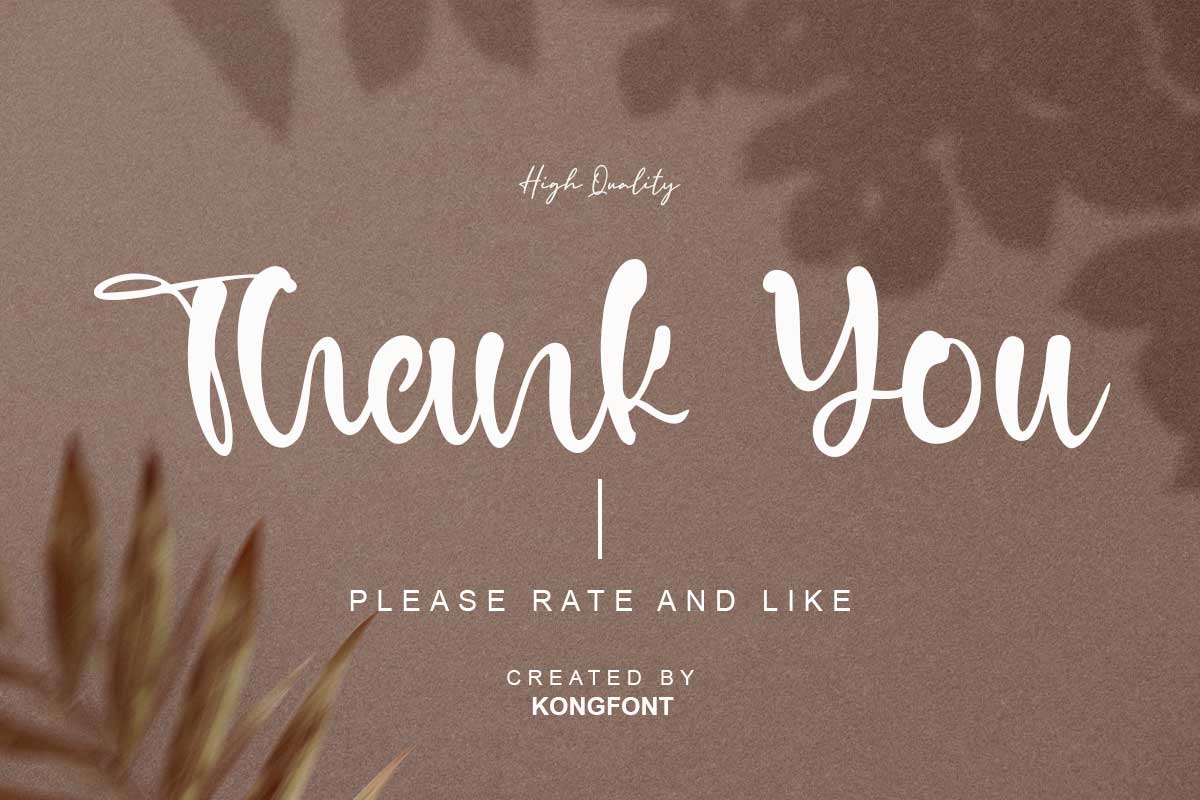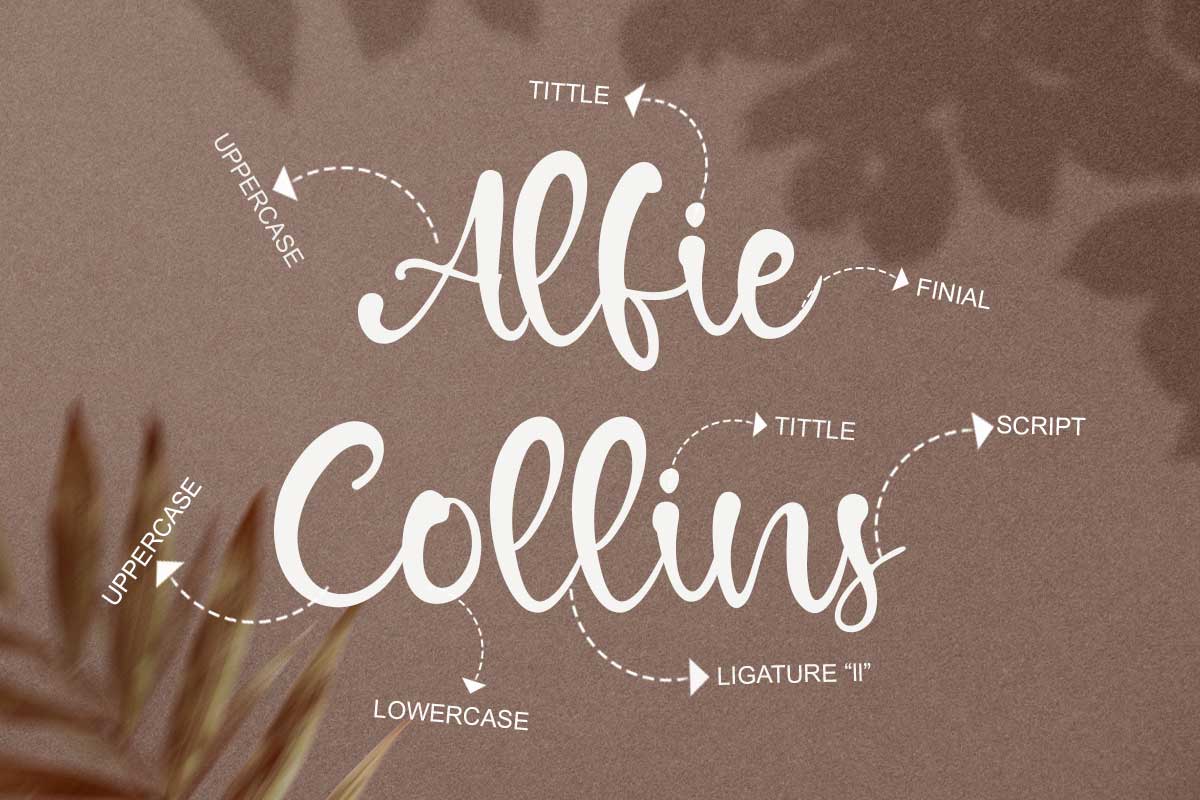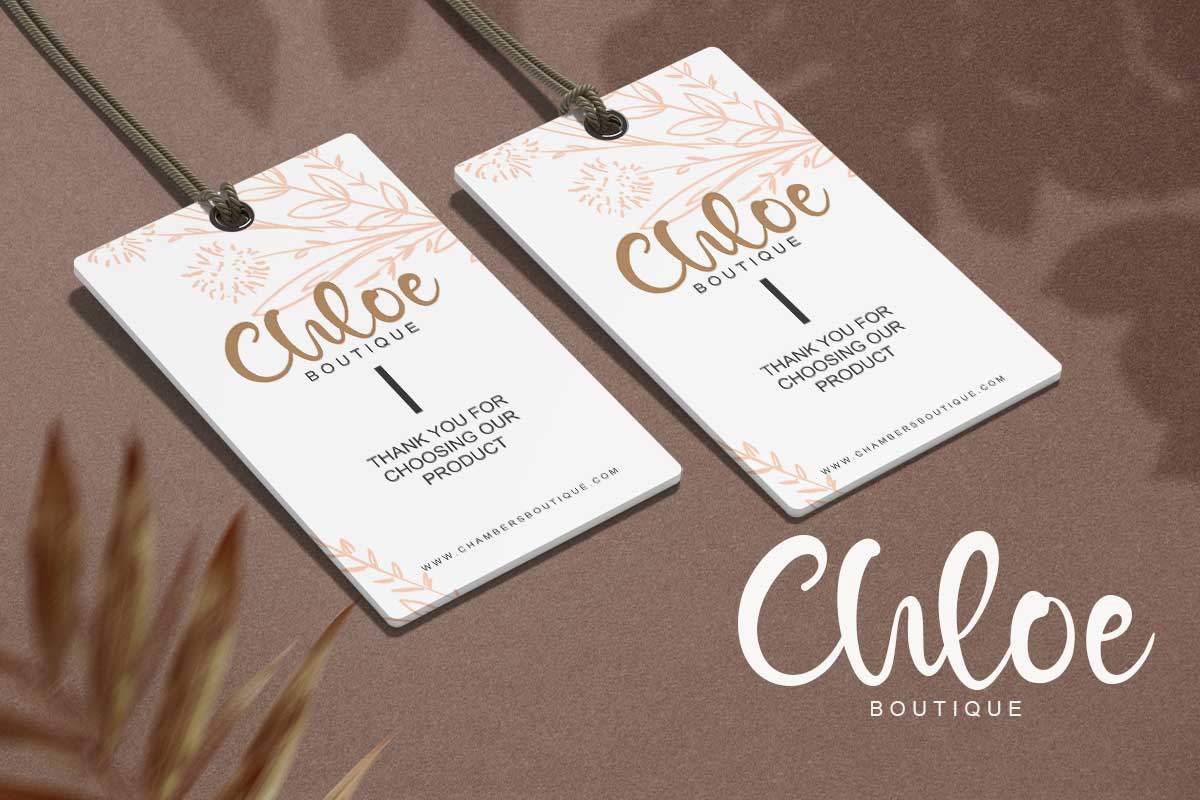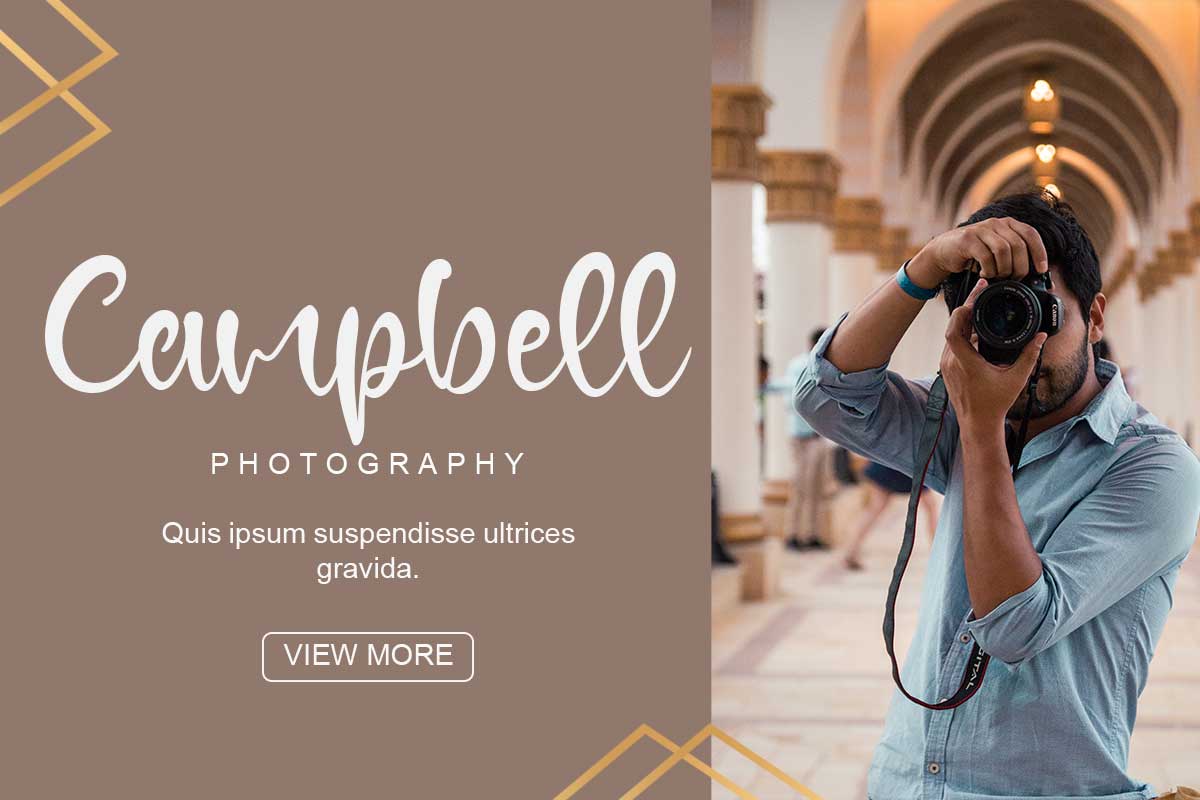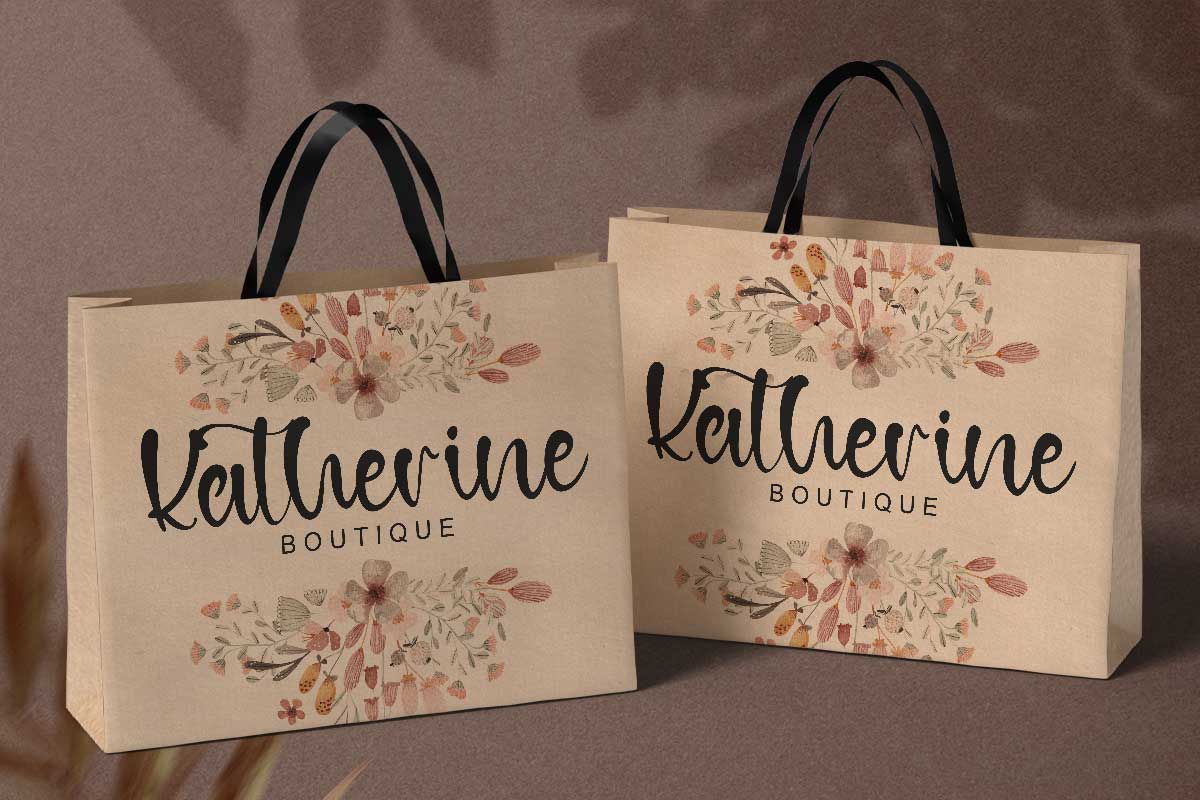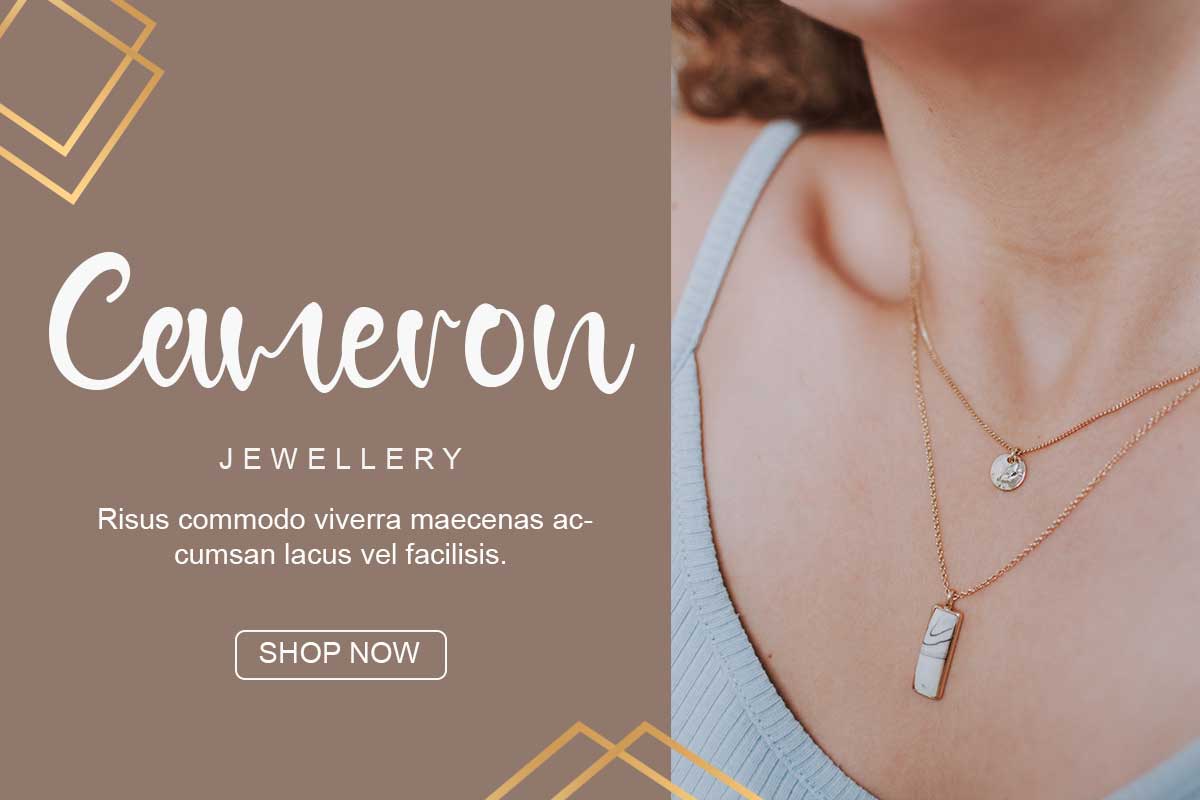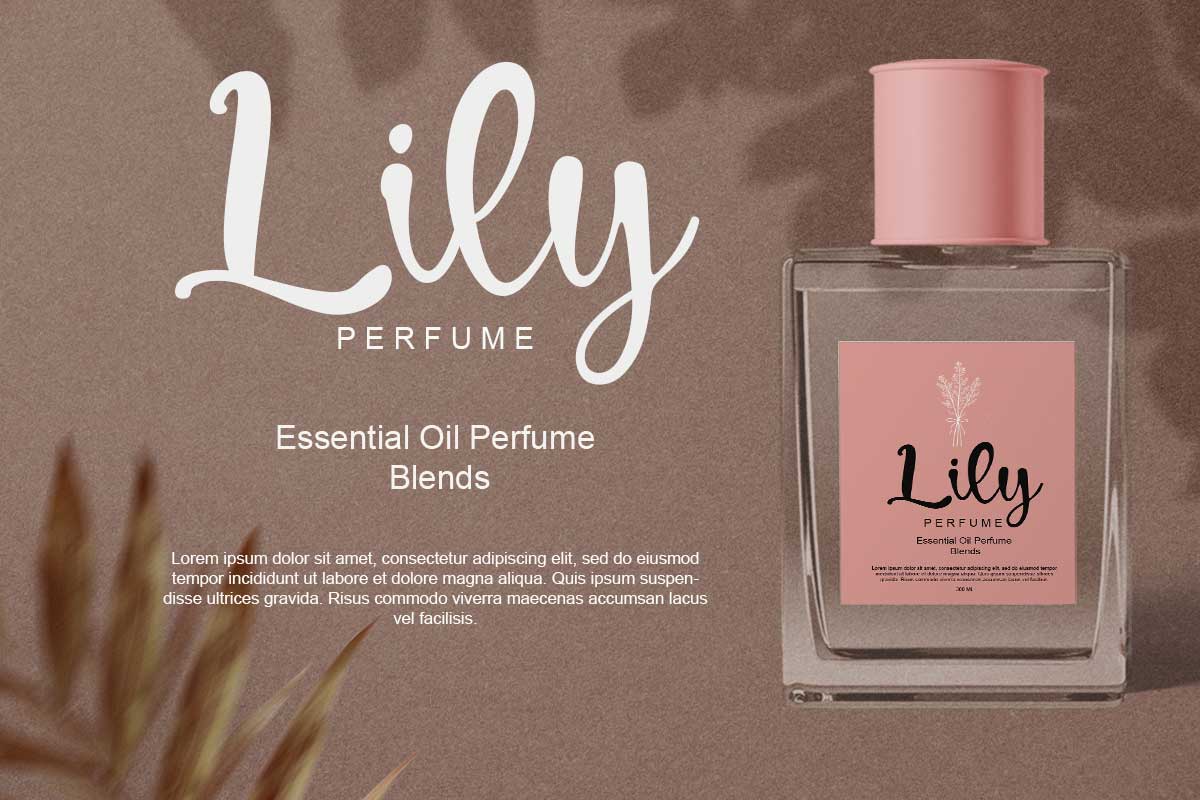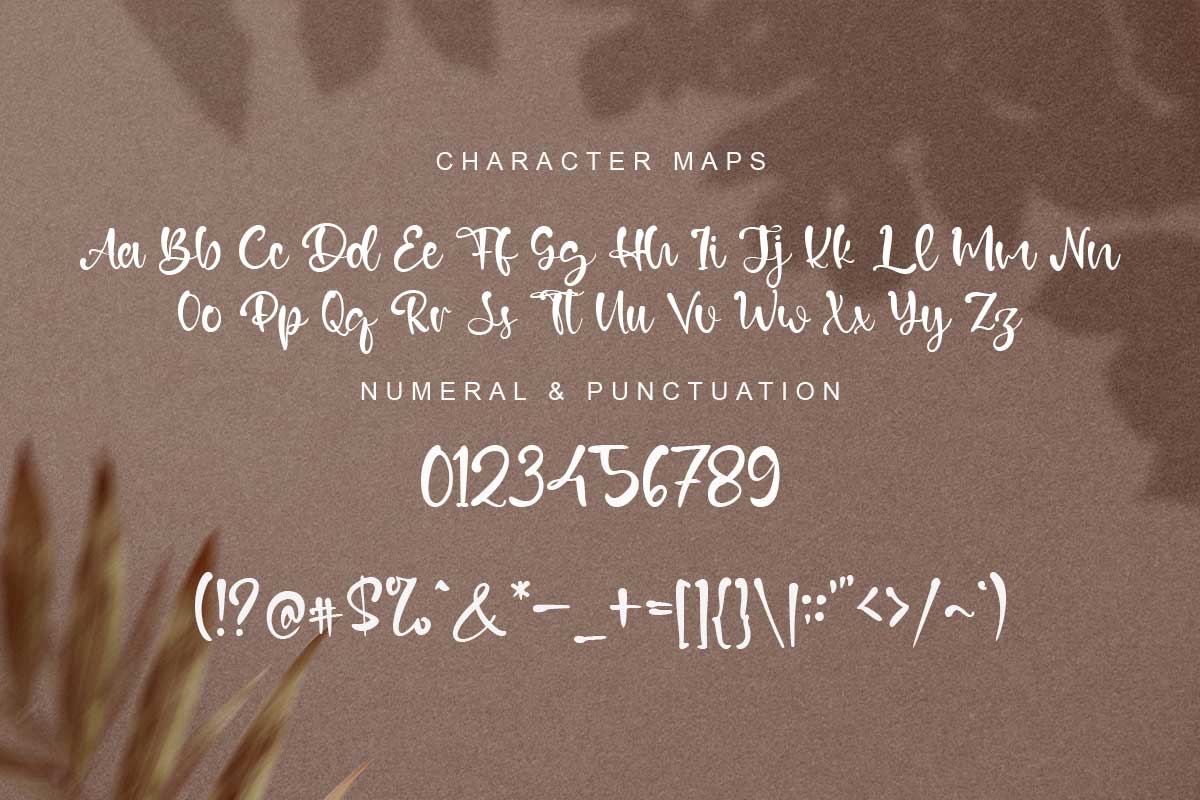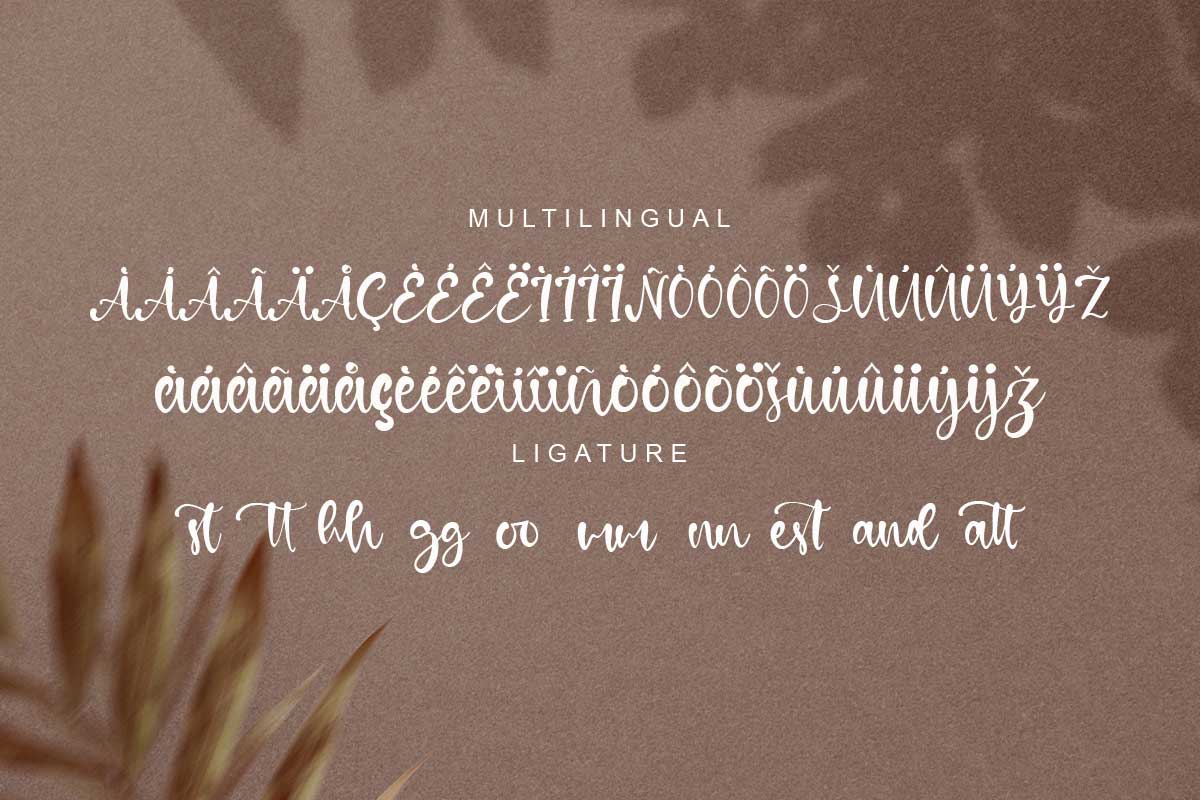
Dennison Calligraphy Font is part of the Scrip & Signature font family. Dennison Calligraphy Font is elegant and exudes a simple but luxurious typeface. This font looks like handwriting made using a small brush. It has a lot of flow and beautiful curves in its design. However, compared to other typefaces, Dennison Calligraphy Font has a more limited use. This typeface is the font is the best font used for formal events such as weddings, classical music concerts, graduations, etc. This type of letter can be used for invitation cards, posters, and souvenirs. A script type such as Dennison Calligraphy Font is one of the fonts that meet the requirements to be used representing the name of a women's fashion brand. It can represent a feminine and elegant impression when paired with the appropriate color and theme. Our Dennison Calligraphy Font doesn't need a lot of extra embellishment or work to look great in both print and digital fonts. All you need is the skill to understand what combinations of good fonts and different typefaces work together. Use Dennison Calligraphy Font in the body of a long text with a lot of dense information for the reader feels inappropriate. Because this font is included in the illegible font. It is more suitable to be used as a title in a banner or a web. Our collection of script & signature fonts is compatible with Figma fonts, Canva fonts, Freepik Fonts, and Adobe Fonts. They also work as Windows Fonts and Apple Fonts. For your social media needs, you can use and install fonts in our Script & Signature font collection to use as Instagram Fonts, Facebook Fonts, and Twitter Fonts.